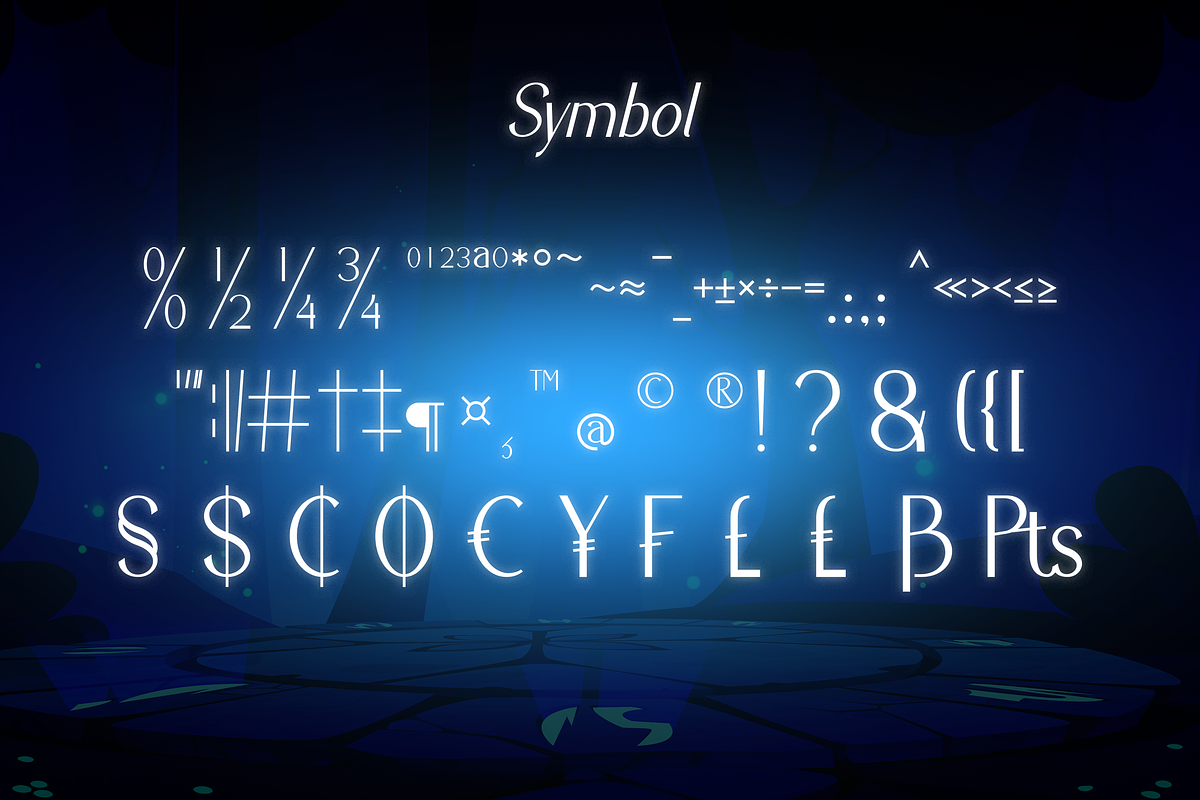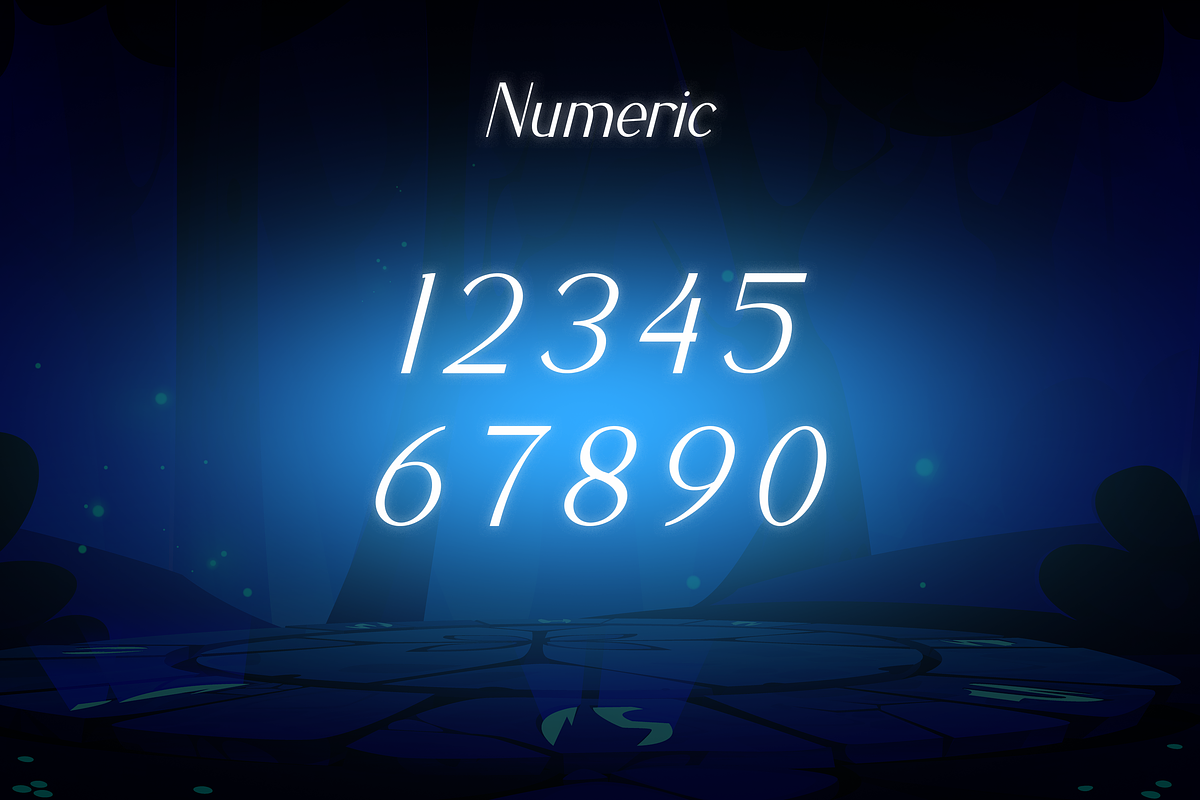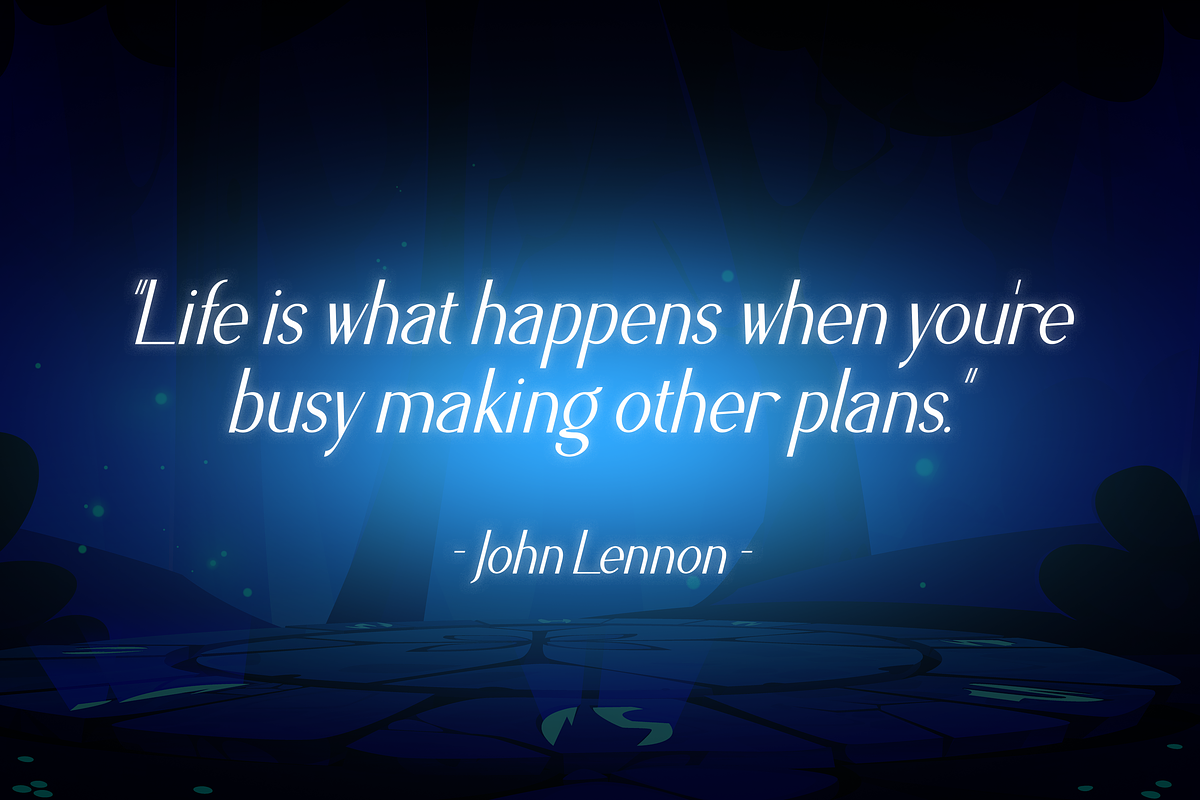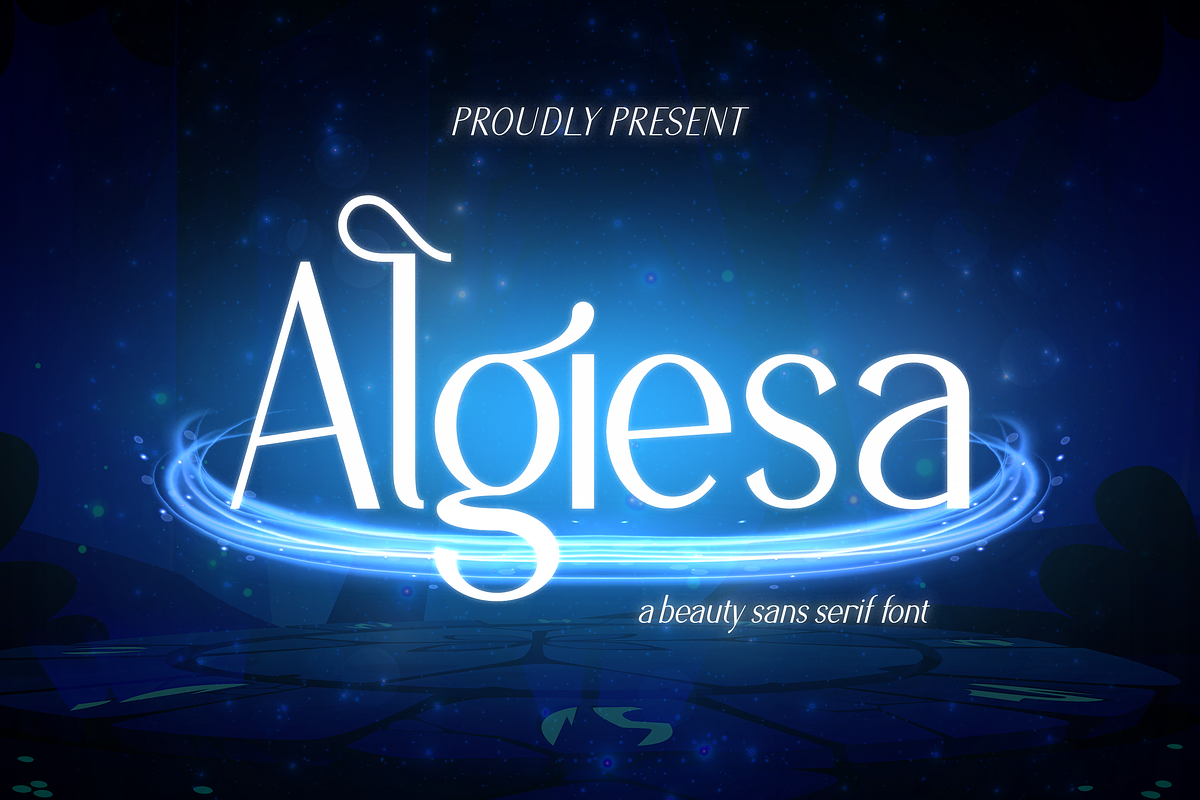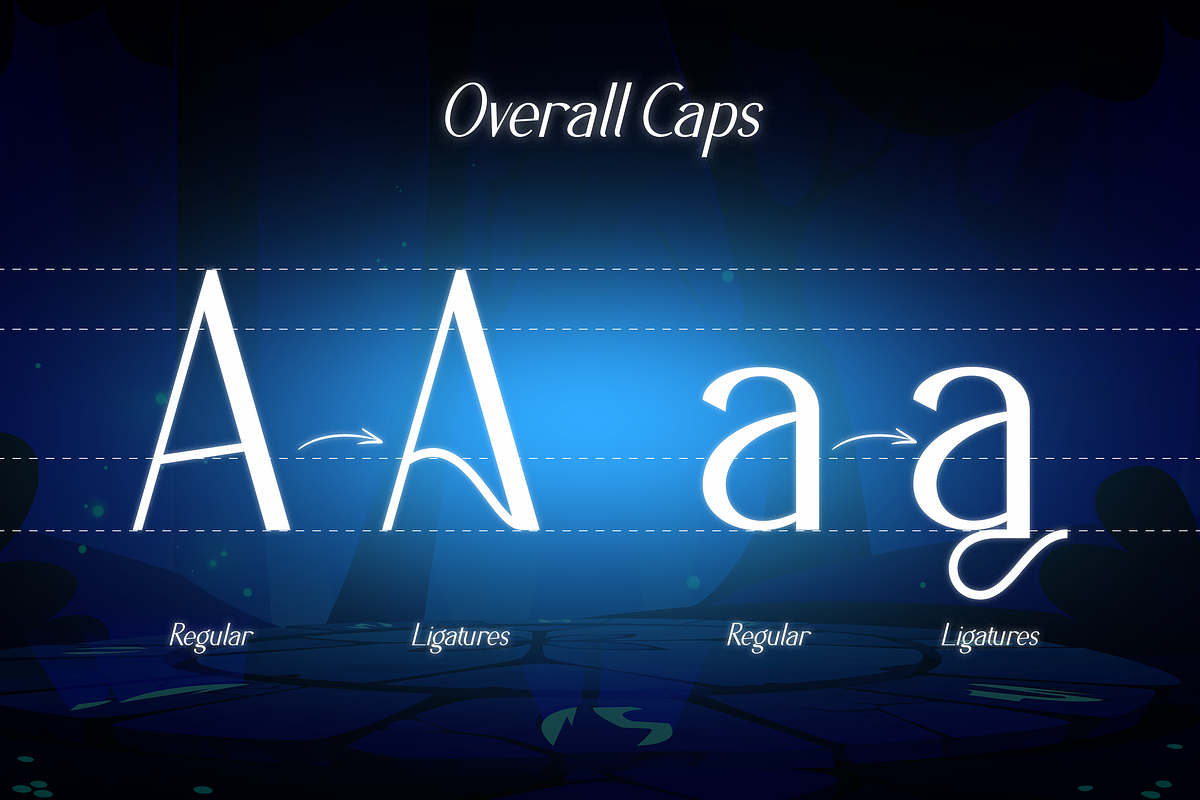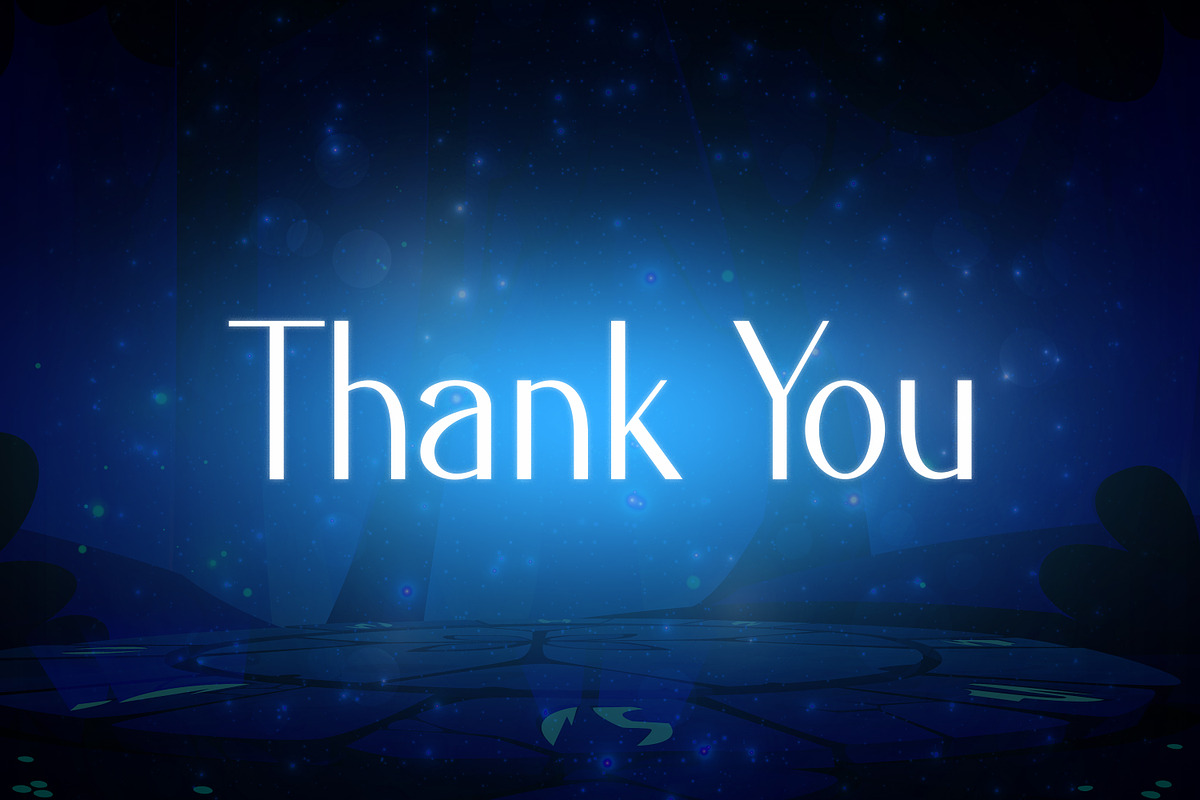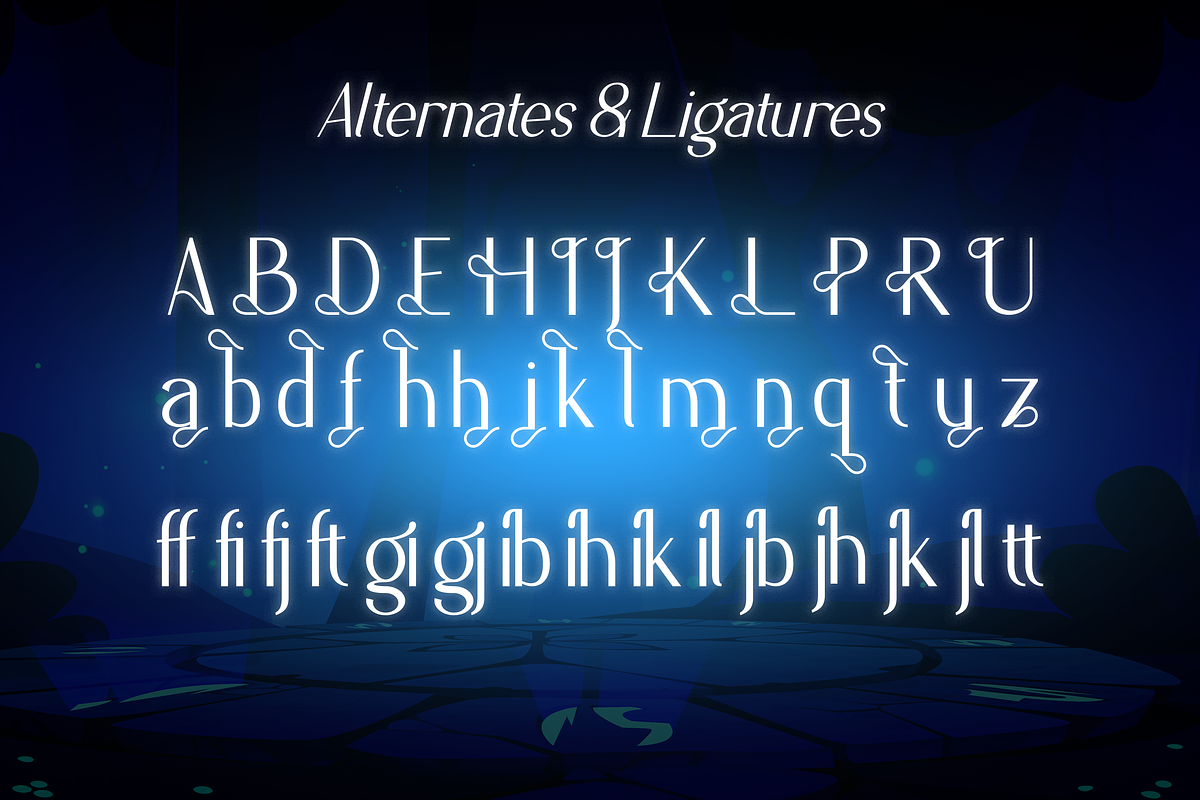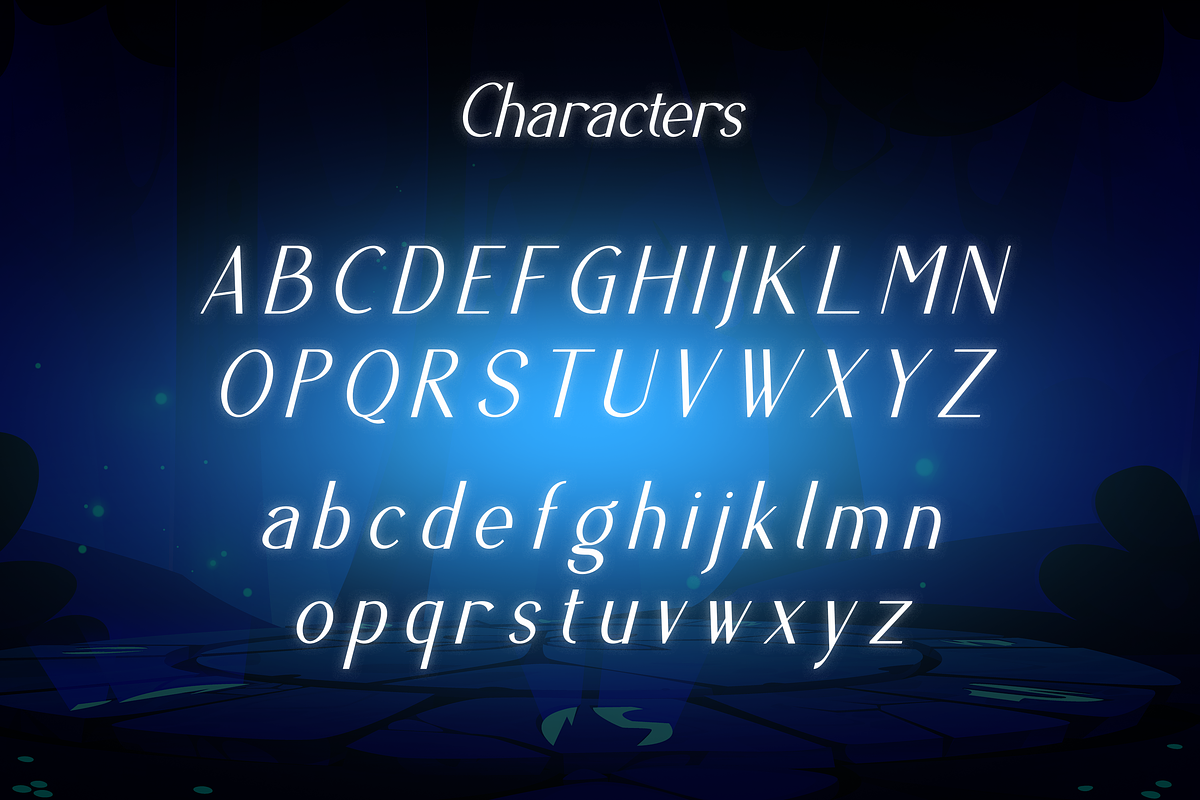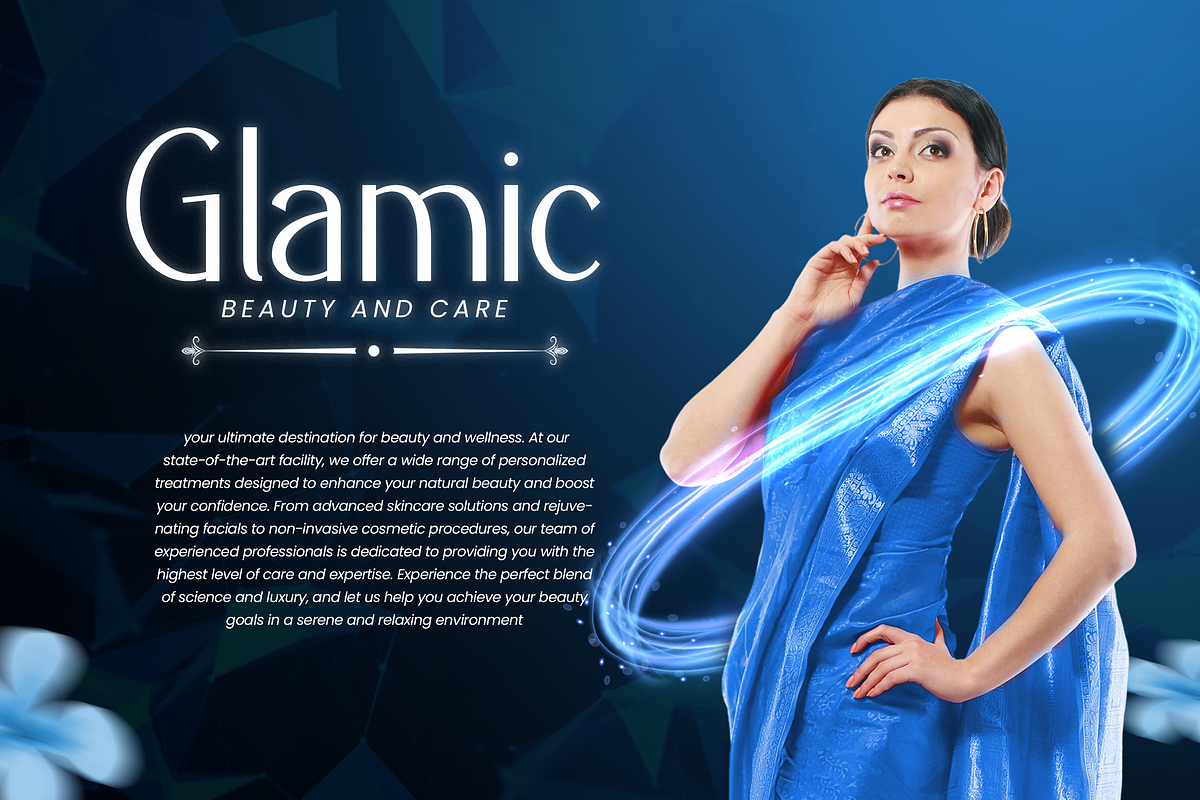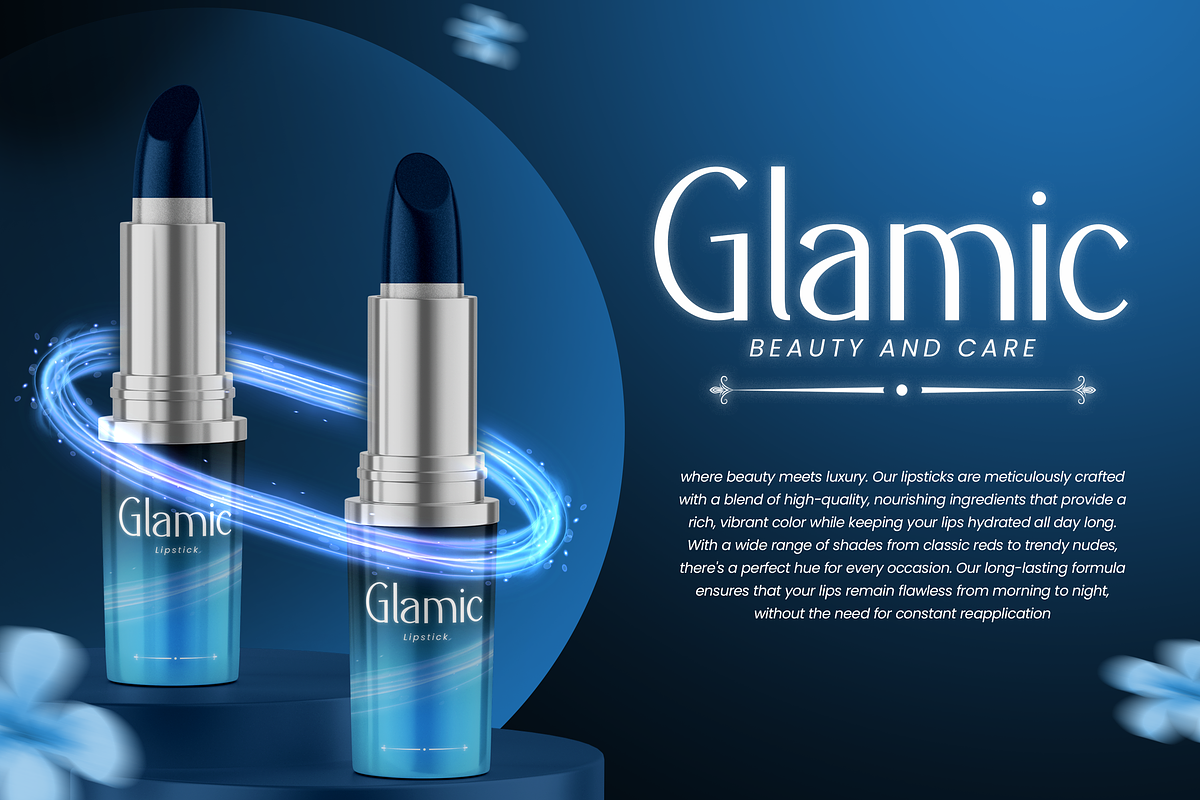
Algiesa
Algiesa - Modern Sans Serif Font, from Rishsketch Studios, is a premium Sans Serif Font, perfect for any project that requires a distinctive, and premium feel.
- Ligature, Alternate & amp; Multilingu